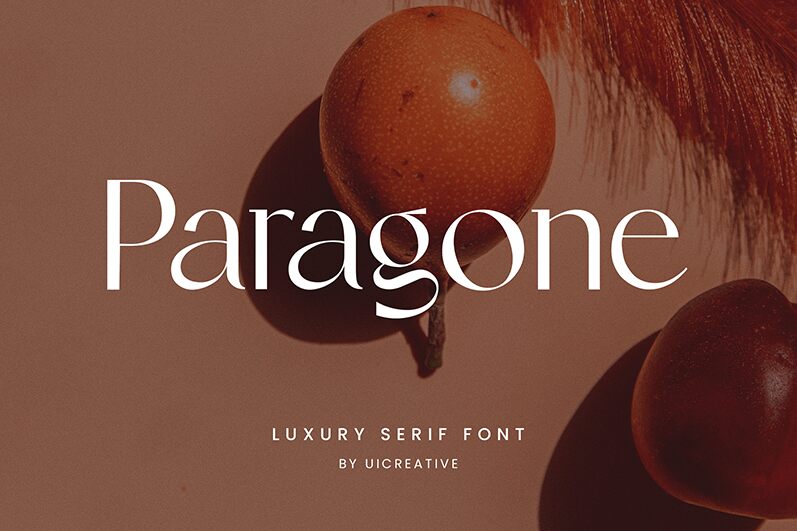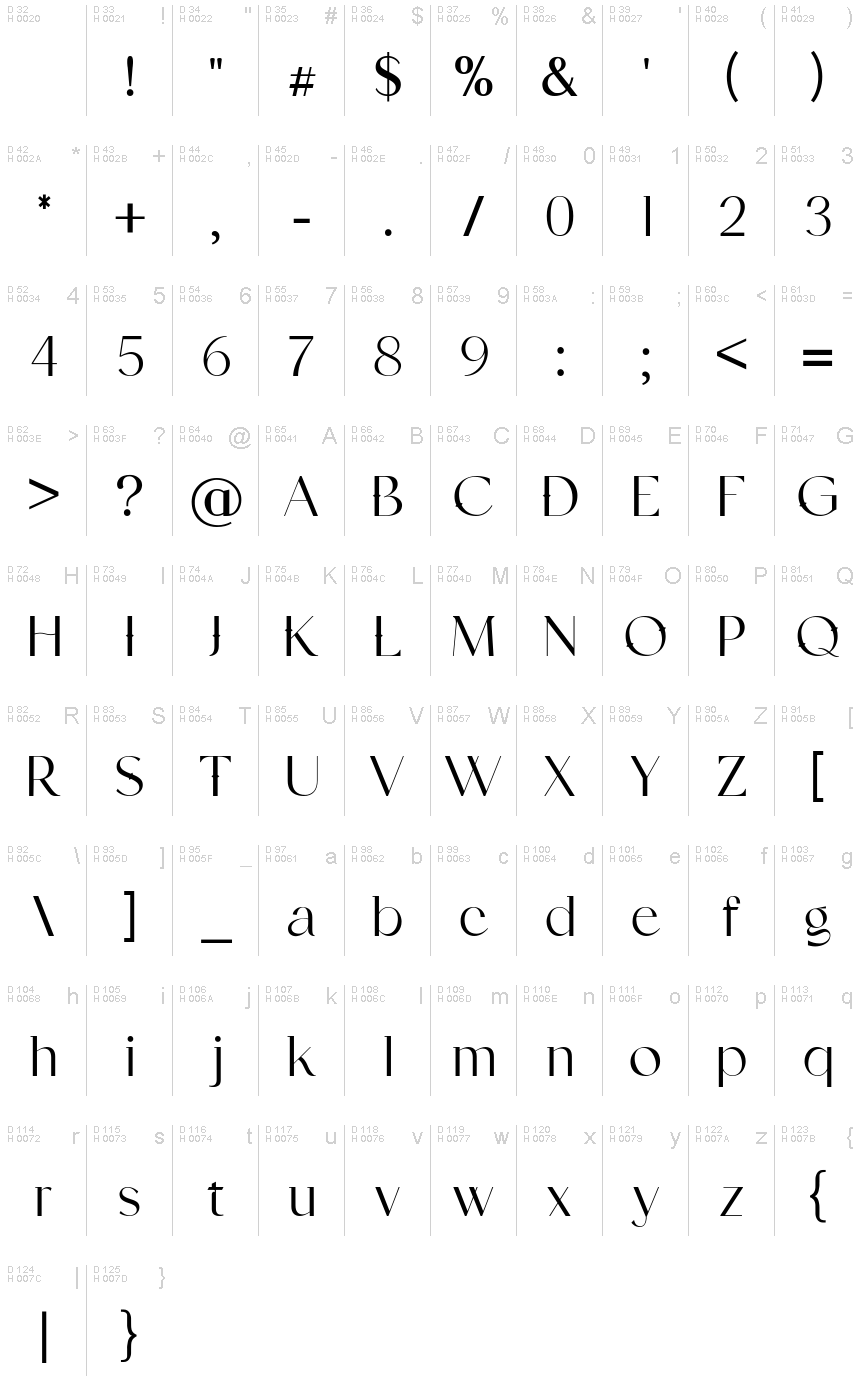
Paragone
Paragone, crafted by UI Creative, is a strikingly elegant typeface that embodies both sophistication and modernity. Its refined curves and distinct serifs lend it an air of timeless grace, perfect for projects requiring a touch of class. The font's lightness creates a sense of airy delicacy, making it ideal for luxury branding, high-end publications, and editorial designs. Paragone's expanded form adds to its majestic presence, ensuring that each letter stands out with clarity and poise.
This font shines in applications where elegance and readability are paramount. It's perfectly suited for fashion magazines, upscale packaging designs, wedding invitations, and chic corporate identities. Paragone seamlessly blends traditional beauty with contemporary flair, offering designers a versatile tool to create visually stunning works that captivate and inspire.